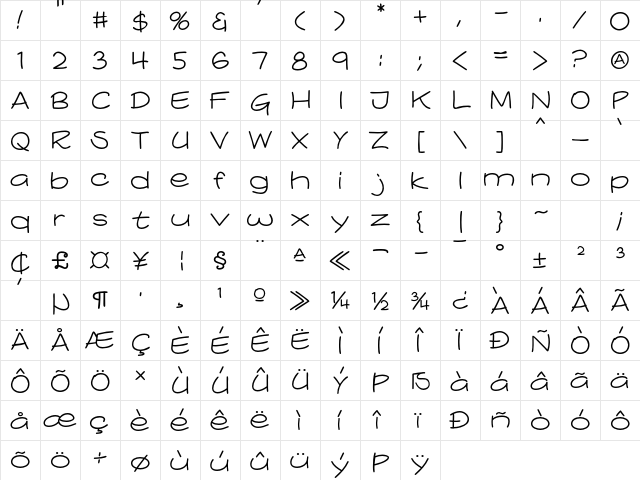
Comicblast Regular
Design Context for Comicblast Typeface
Comicblast trades formality for fun, with bouncy, characterful letterforms that bring warmth and energy to any project.
Font Pairing: Pairs well with a rounded or humanist sans for body copy, maintaining the friendly tone without relying on Comicblast to carry extended reading.
Pro Tip: Avoid using Comicblast for long passages of text — it works best for headlines, labels, and short calls to action.